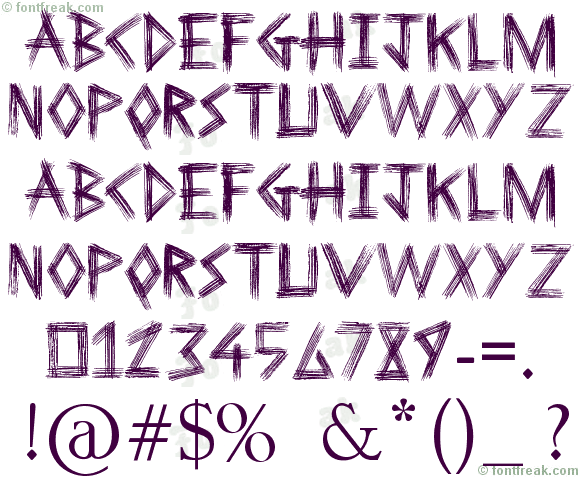
Sketchline
About Sketchline
The Sketchline font by Jonathan S. Harris is a captivating display typeface that embodies a unique artistic flair. This font features a handwritten style characterized by its irregular, sketchy strokes, giving it an organic, hand-drawn appearance. With a medium stroke weight and a playful contrast, the letters appear lively and dynamic, evoking a sense of creativity and spontaneity. The spacing between characters is deliberately varied, enhancing its whimsical charm, while the decorative elements—resembling pencil or brush strokes—add an extra layer of visual interest.
Sketchline is particularly well-suited for a variety of creative applications. It shines in contexts such as wedding invitations, where its artistic nature can convey a personal touch. Additionally, it works beautifully for movie posters, capturing attention with its bold and unconventional look. Restaurant menus can also benefit from this font, providing a unique character that complements a trendy or artisanal dining experience. Furthermore, it is ideal for branding materials aimed at artisanal products, crafts, or any venture that seeks to convey a handmade quality.
The target audience for the Sketchline font includes graphic designers looking to add a distinctive touch to their projects, small business owners eager to stand out, and content creators who want to infuse their work with personality.
What makes Sketchline truly stand out is its ability to blend professionalism with an artistic edge. It allows for creative expression while maintaining readability, making it a versatile choice for various design needs. For those interested in enhancing their projects with a unique style, the Sketchline font free download offers an excellent opportunity to explore this dynamic typeface and elevate their visual communications.